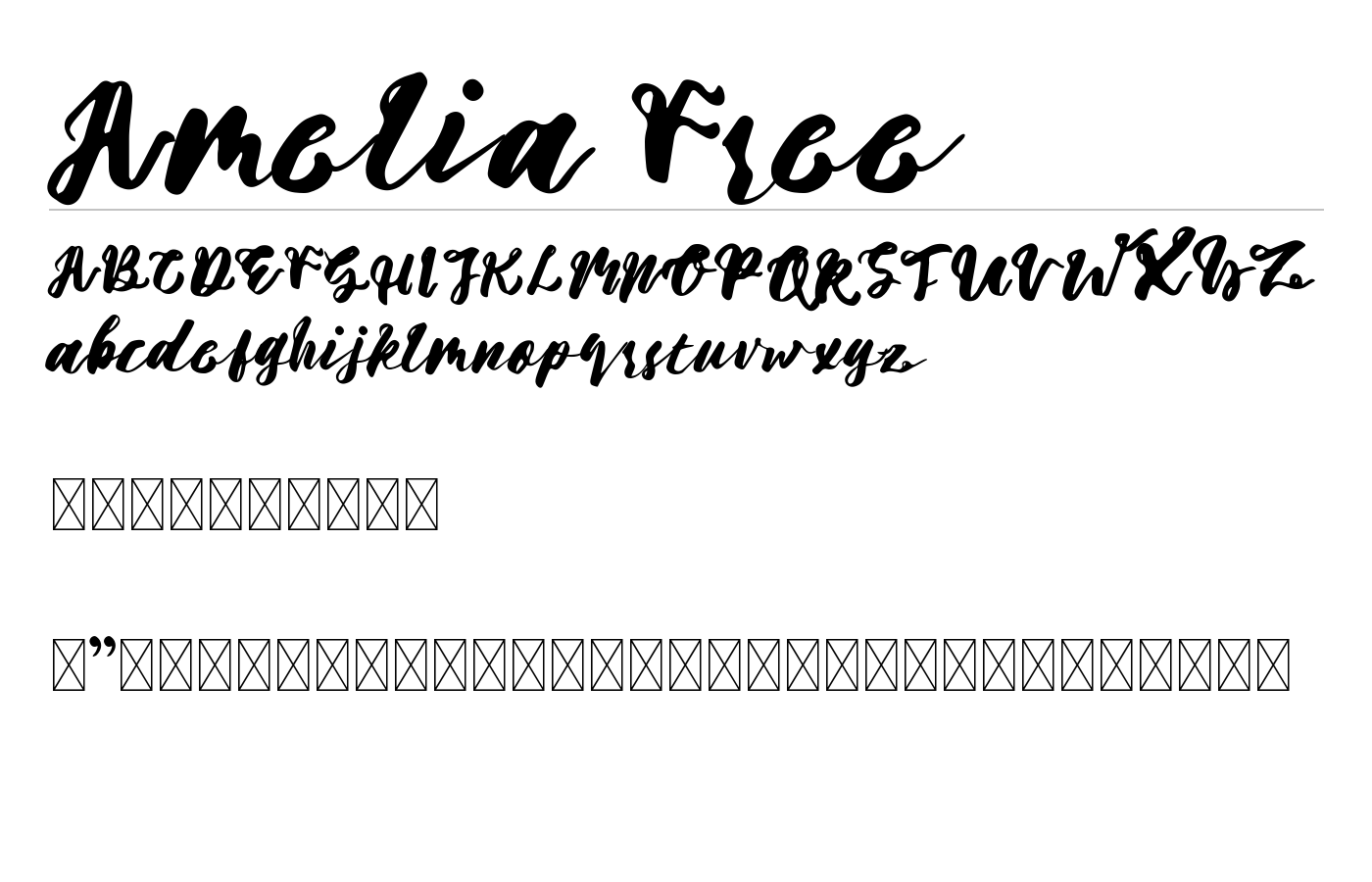
Amelia Free Font is a bold, script-style typeface with a lively, handwritten feel that blends thick, brush-like strokes with smooth, flowing curves. Its energetic, casual character makes it perfect for creative projects such as logos, invitations, and branding that seek a personal, artistic touch. This font works best in display contexts where its expressive style can shine and capture attention.
Amelia Free Font
About Amelia Free Font
| Font family | Amelia Free Font |
| Designer | MasdikaStudio |